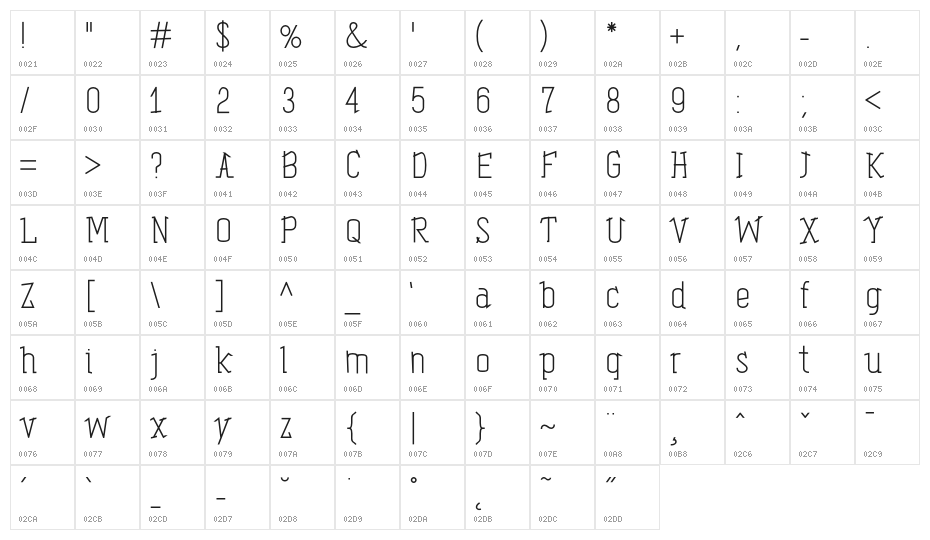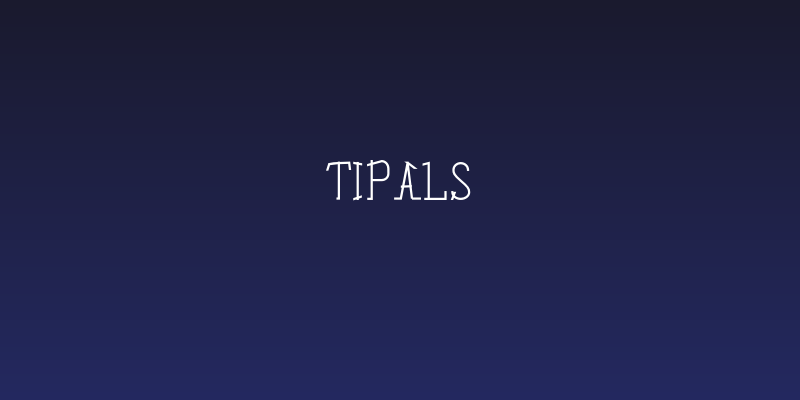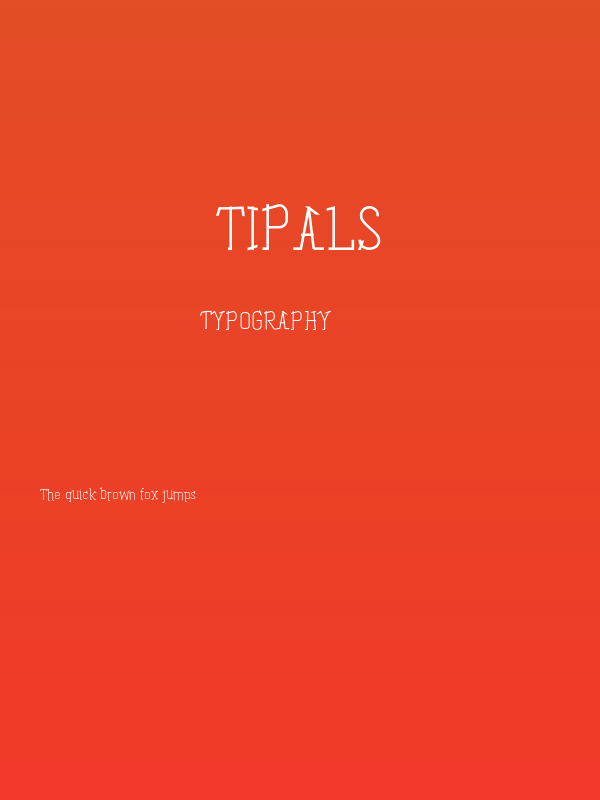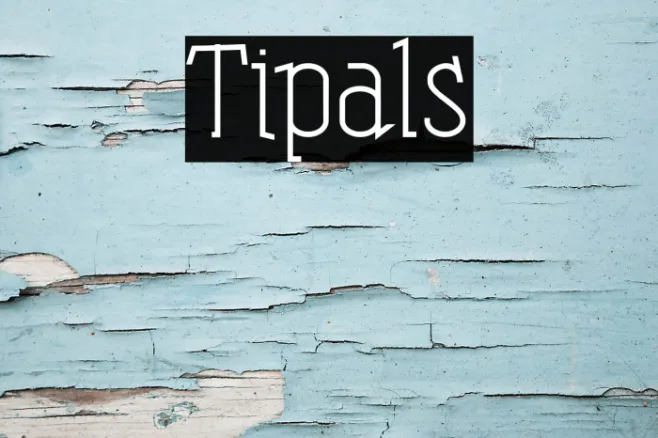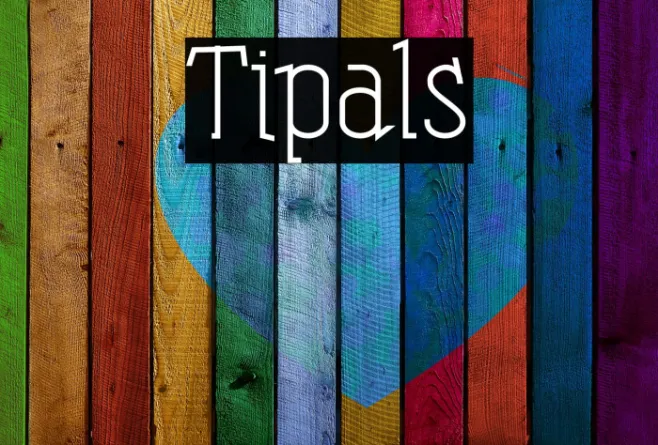
Tipals Font
Tipals Description
This font features a unique blend of geometric and organic elements, characterized by its angular and slightly irregular strokes. The uppercase letters exhibit a distinct angularity, with sharp edges and a modern flair, while the lowercase letters maintain a more rounded and approachable appearance. The numerals are consistent with the overall style, offering a clean and contemporary look. Special characters are well-integrated, maintaining the font's cohesive aesthetic. The overall design is both eye-catching and versatile, making it suitable for a variety of creative applications.
| Proposed Projects | Ideal for branding, posters, and editorial design where a modern and distinctive look is desired. |